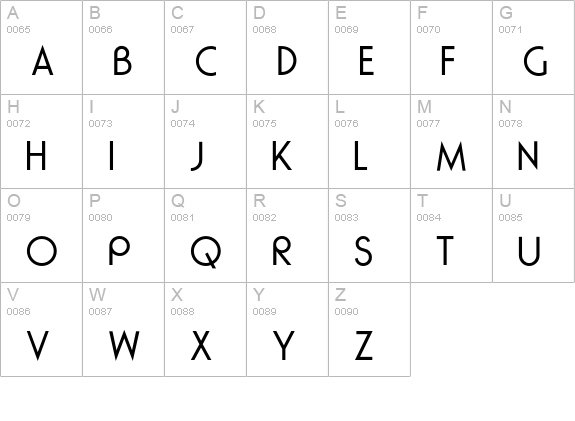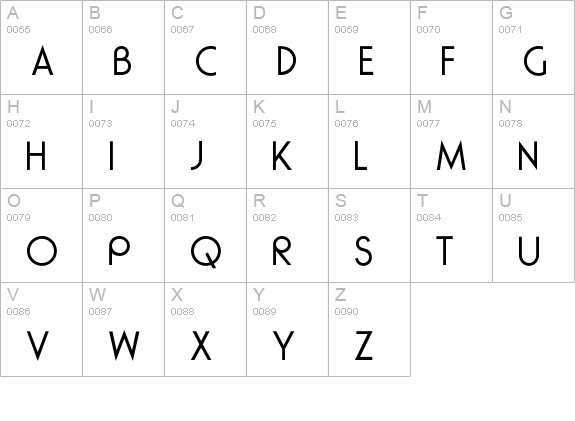
RondaLight Font Details
RondaLight is a modern and elegant font that exudes sophistication and style. Its sleek lines and graceful curves make it perfect for a variety of design projects, from logos to invitations to branding materials. The light weight of this font adds a touch of delicacy and refinement to any text it graces. What sets RondaLight apart is not only its aesthetic appeal but also the fact that it is available for free download at FontsMarket.com. This means that you can elevate your designs with this stunning font without having to worry about breaking the bank. Whether you are a professional designer or a DIY enthusiast, RondaLight is sure to become a valuable addition to your font collection. Download RondaLight today and bring a touch of elegance to your next project!